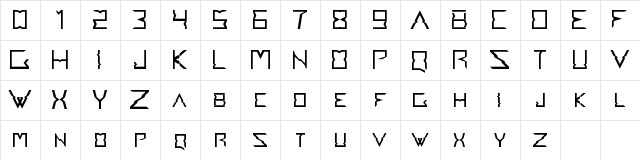
Accedent Regular Free Font
Accedent Regular
Designer: Khiro
Design Context for Accedent
Accedent is a composed and adaptable typeface that performs quietly and consistently across a wide range of design contexts.